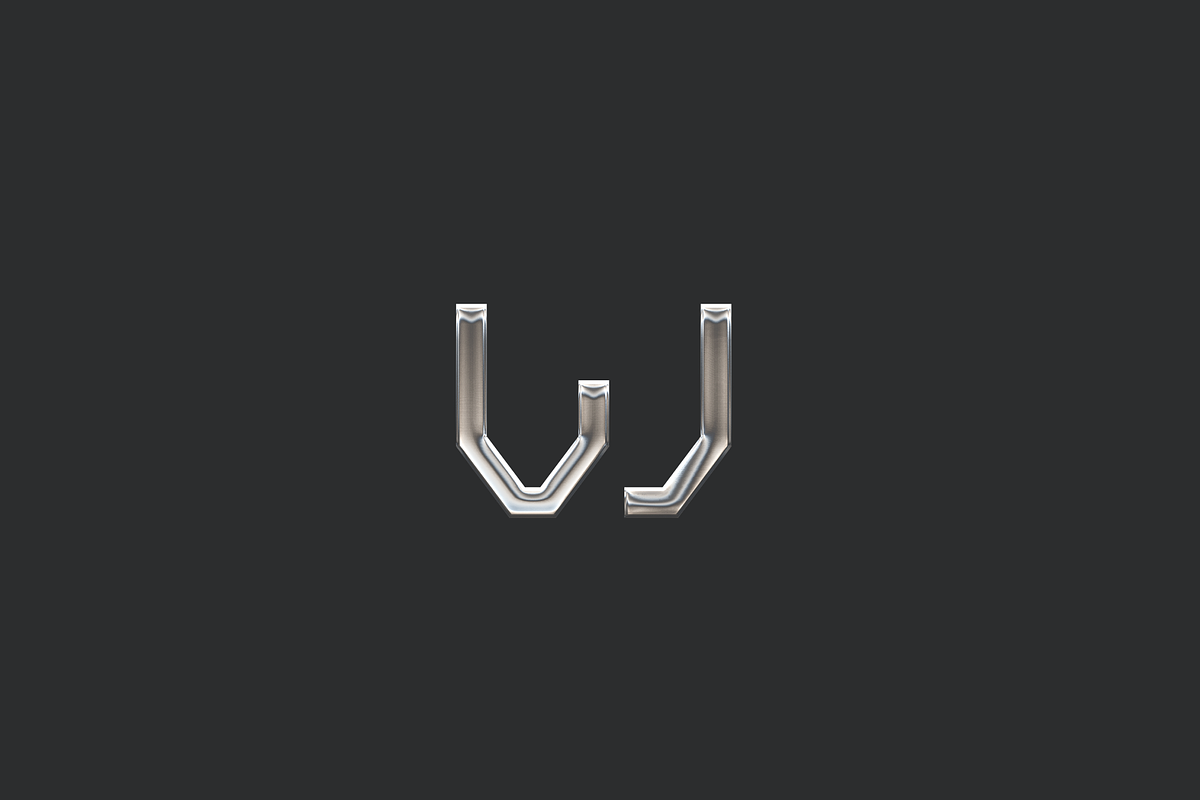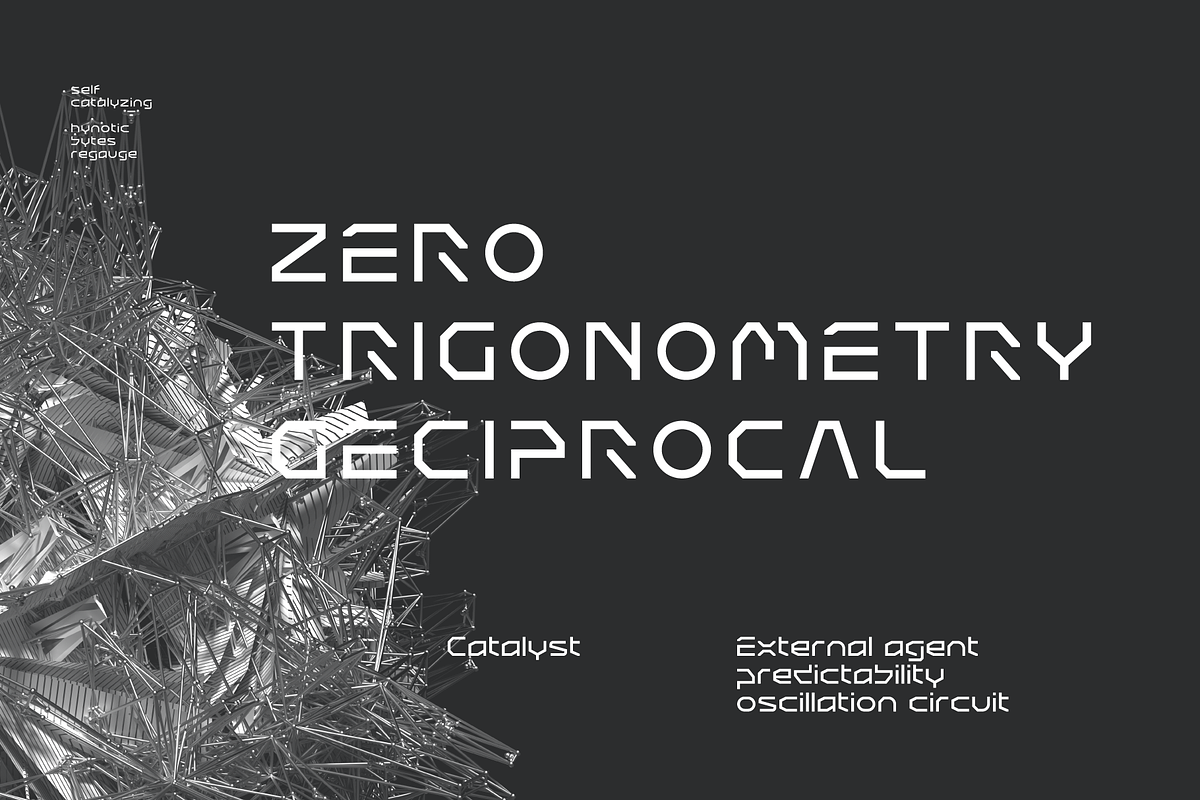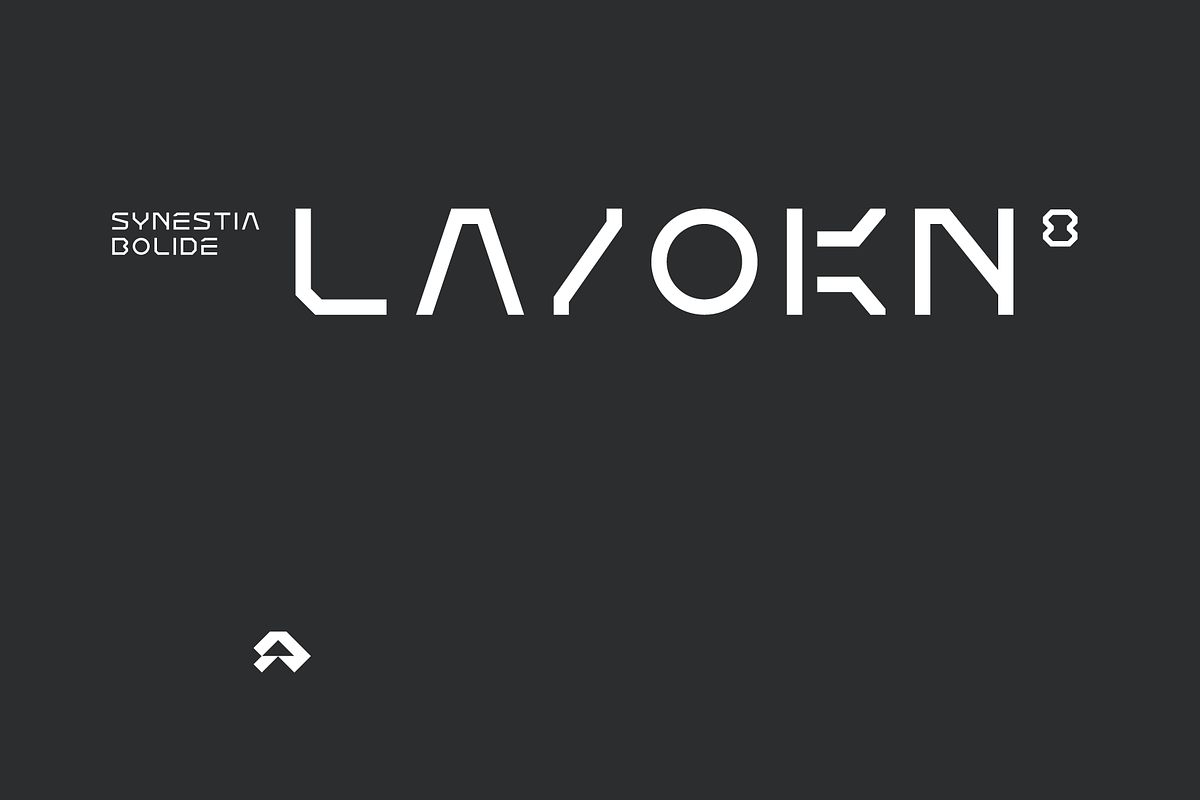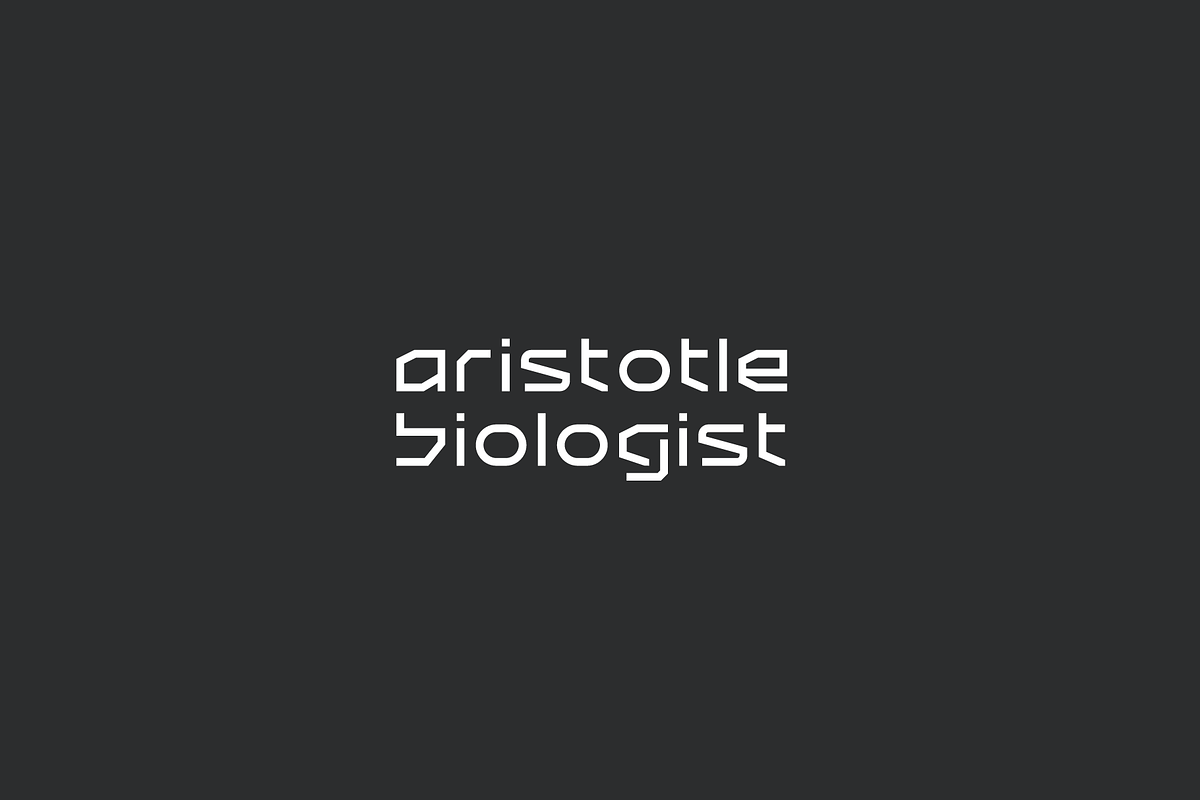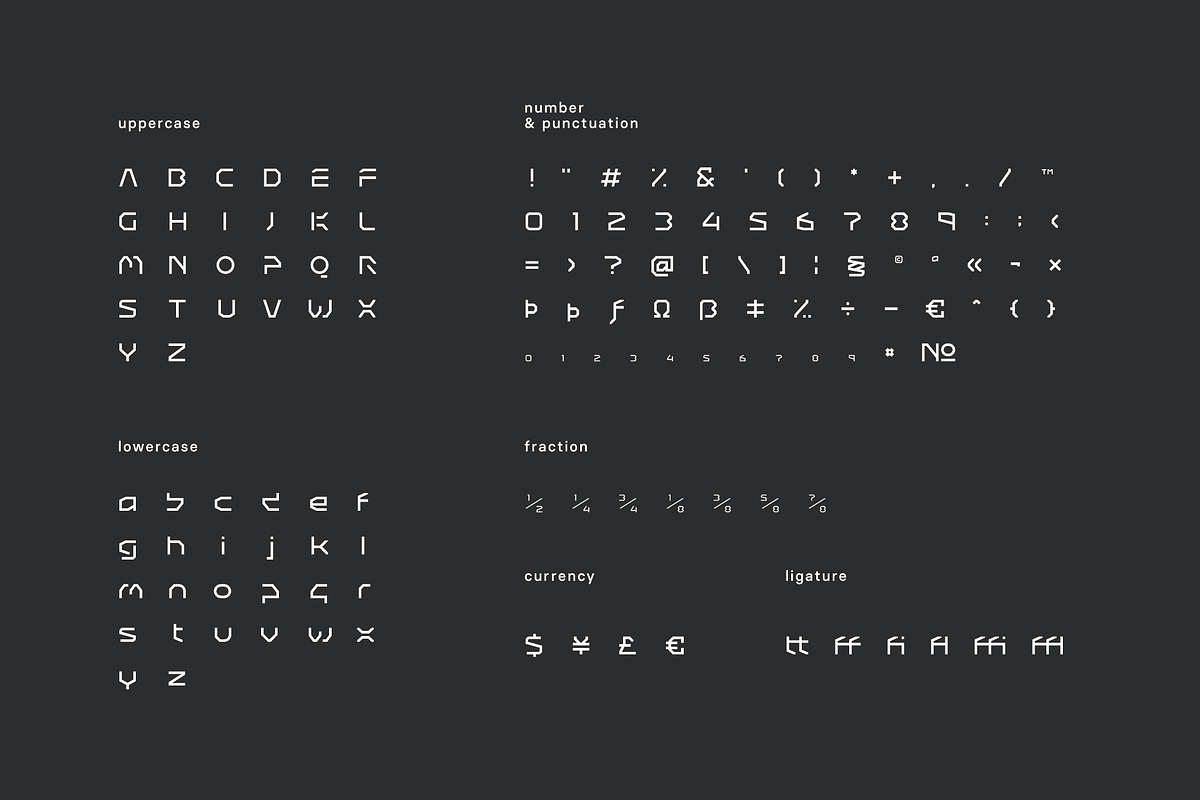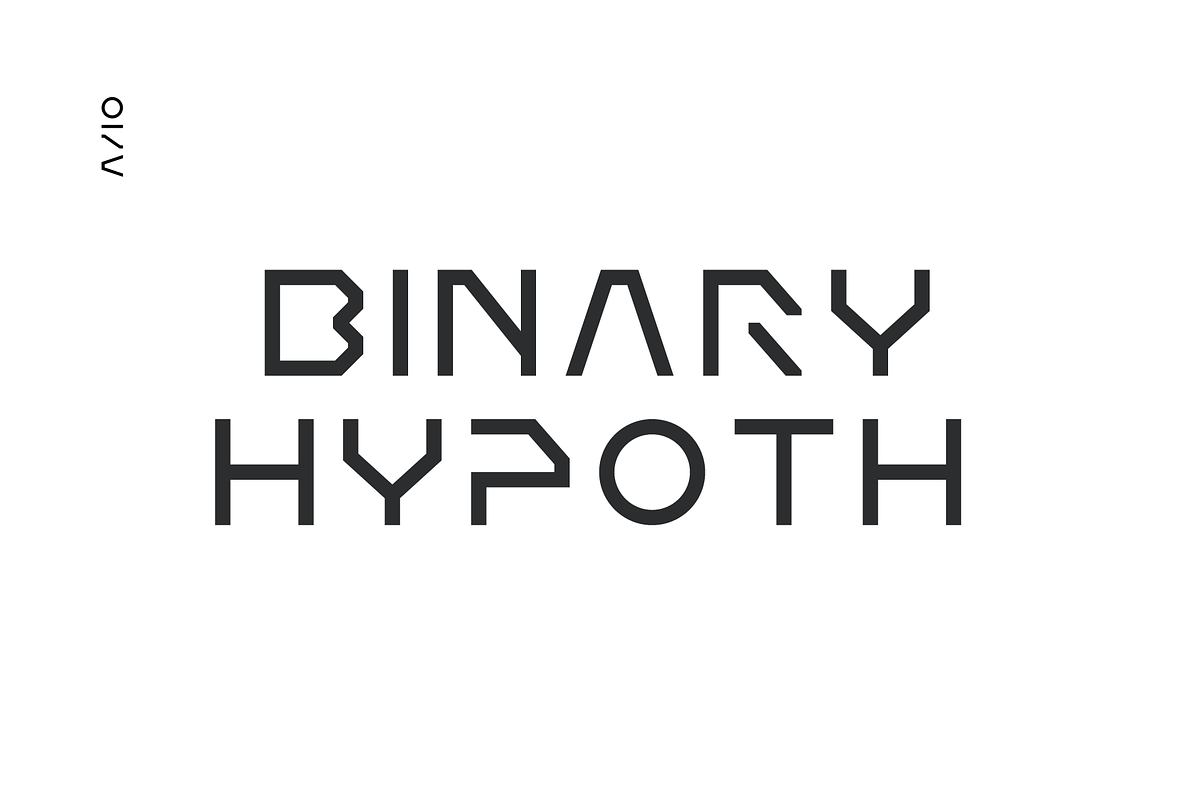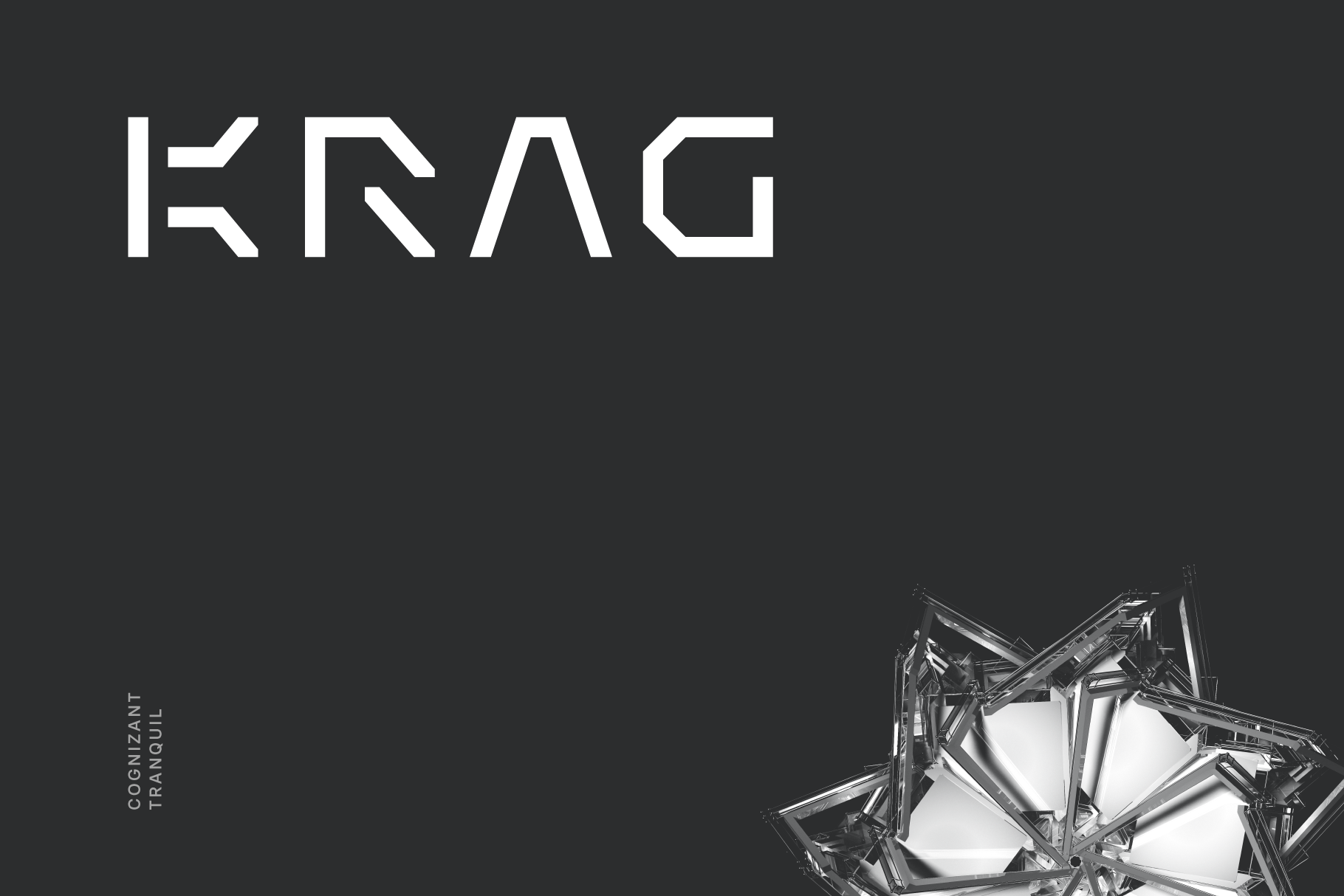
Krag Futuristic Tech Font
Krag is a cognizant tranquil tech display typeface apt for headline, editorial, branding, packaging, printed materials and typographic applications. 150+ glyphs with ligatures and fractions provided in opentype .otf and .woff format.